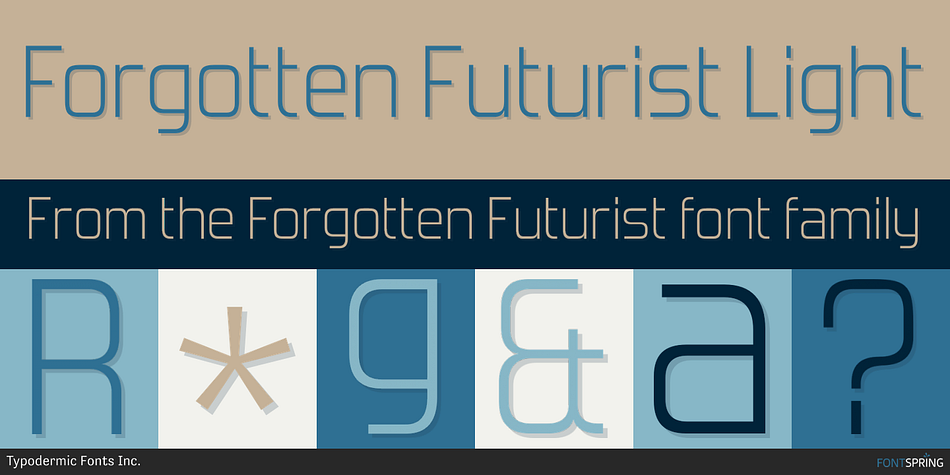
Forgotten Futurist Light
Forgotten Futurist is a display sans and sans serif font family. This typeface has nineteen styles and was published by Typodermic Fonts Inc.
Are you ready to travel back in time? To a world of neon lights, high-tech logos, and a retro-futuristic style that defined an era? Then you’re ready for Forgotten Futurist.
This industrial typeface is the perfect blend of old and new, with a vintage feel that still looks cutting-edge. Its letterforms are inspired by the 1960s and 1970s, when technology was just starting to take off and the world was full of possibilities.
But Forgotten Futurist is more than just a tribute to the past. Its rounded technical corners and sleek lines are timeless classics, just as relevant today as they were decades ago. And with ten different styles to choose from, including Ultra-Light, Extra-Light, Light, Book, Regular, Semi-Bold, Bold, Heavy, Black, and italics, you’ll have all the flexibility you need to create a truly unique design.
So if you want to add some retro-futuristic flair to your next project, look no further than Forgotten Futurist. It’s the typeface of the future, inspired by the past.